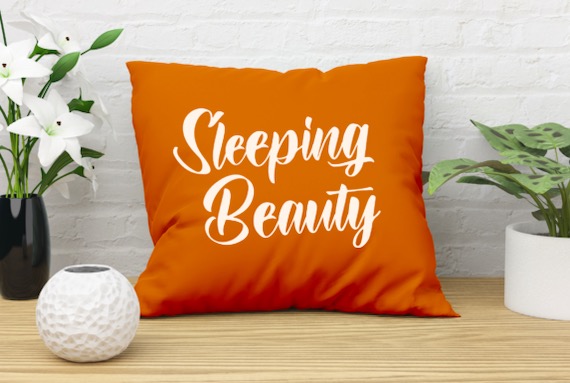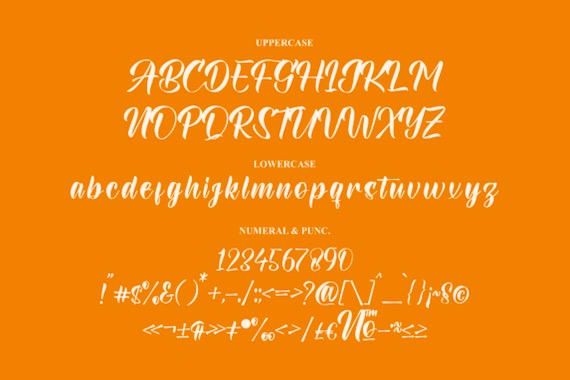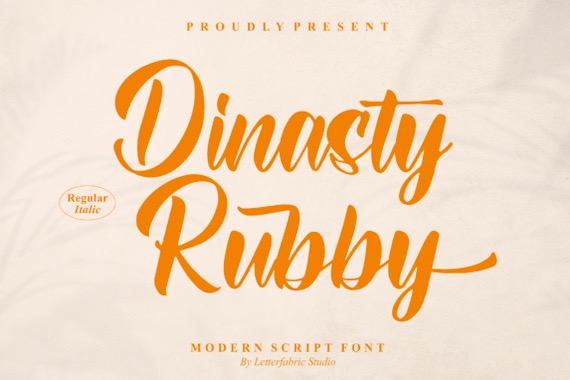
Dinasty Rubby font is a friendly & cute modern script font that was created and shared by Letterfabric. It featuring charming, playful characters that seem to dance along the baseline. Use it for projects that need lovely, romantic typography! This font is PUA encoded, which means you can access all of the glyphs and swashes with ease!
Dinasty Rubby Script Font